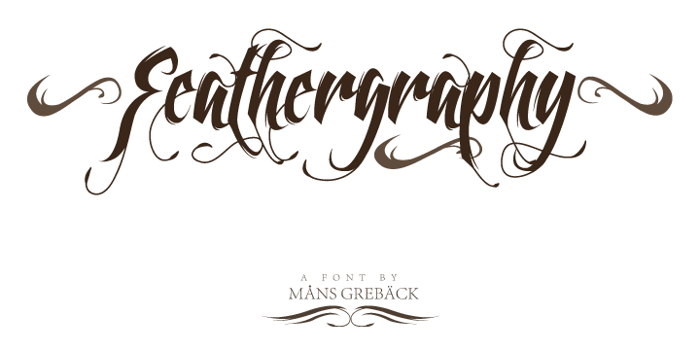
Feathergraphy Decoration Font
Feathergraphy Decoration Font is a Tattoo font and was created on . Since then, it has been downloaded 752,587 times and added to 8,702 collections. 226 people have liked Feathergraphy Decoration Font and given it a thumbs up.
beautiful font.
****** this is ART *******
Great font!
this font is going to look sexy on my lower stomach.
Lovvvve It
gorjus i luv it <3
This font is great!
THIS IS GORGEOUS
great!
This font is TOO DOPE, sun, I love it
Hello inspiration for new Tattoo!!
The font ihs effen pretty!!!
i love this one, fab touch to great art!
ITS PRETTY NICE N VERY ACTRACTIVE..
one of th3 best ones i seen,,
I am so happy to have found this font i saw a pic of someone who had it tattooed on them and have wanted this style on me forever....it's a major upgrade from typical fonts, it's GORGEOUS!!! thank you for having it on here.
N1C3!!!!!!!!!!! T0T4LLY L0V3 1T!!!! <3<3<3
nice
it is the best
beautiful font iconic
thiz iz gan ghee.x
really cool 😃
very nice ...!!
This is mean as ayn im gna get that one or th other one i likes 😄 thumb up 😄
A favorite!
Siickk.!
Beautiful! Thank you
this shit is sick };P
Amazing! Awesome! Brilliant! 5 stars! 😃
This is the one!!!
i want this tattoo
beautifully crafted:D
Awesome font!! Thanks!!
Amazing font that really is the true form of calligraphy!!! 😄
Awesome!
i love the font ❤